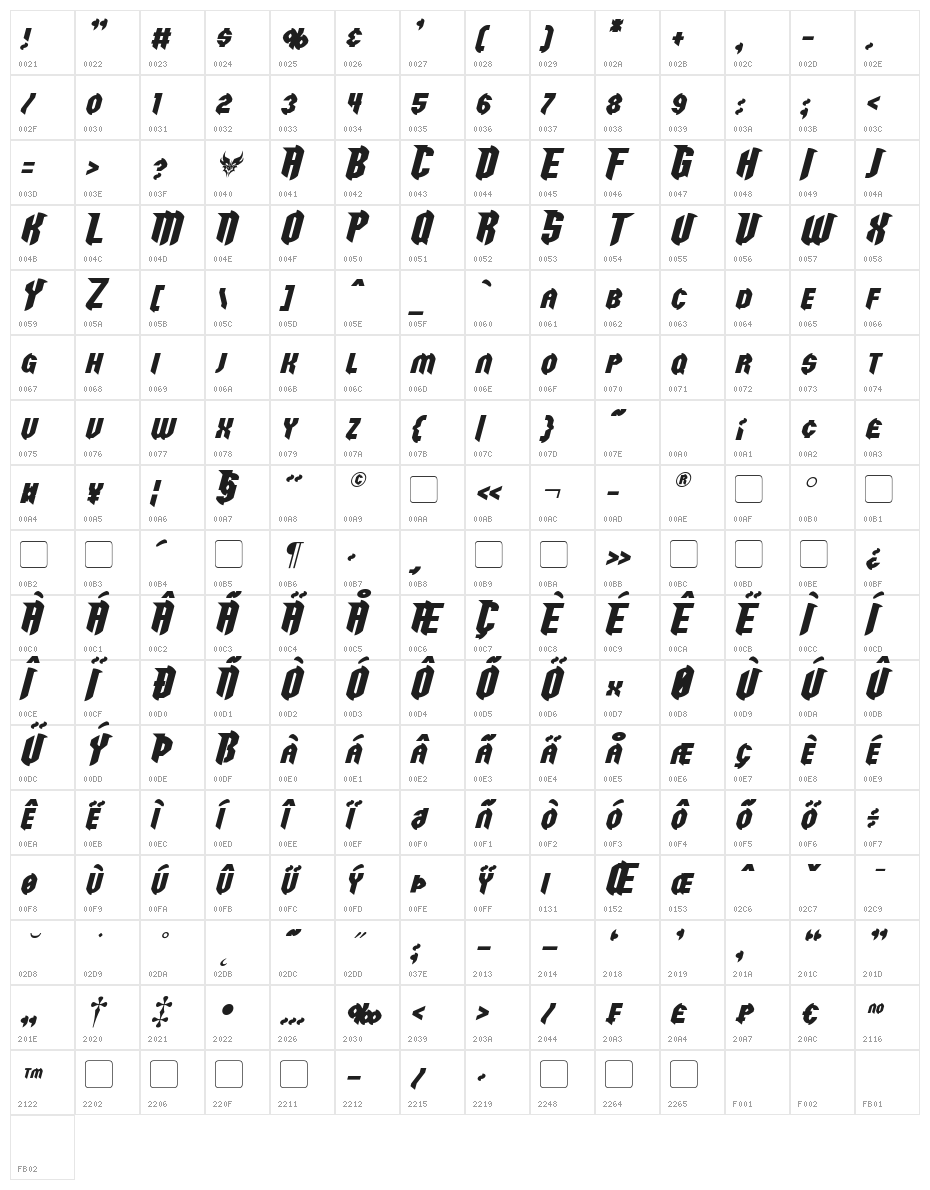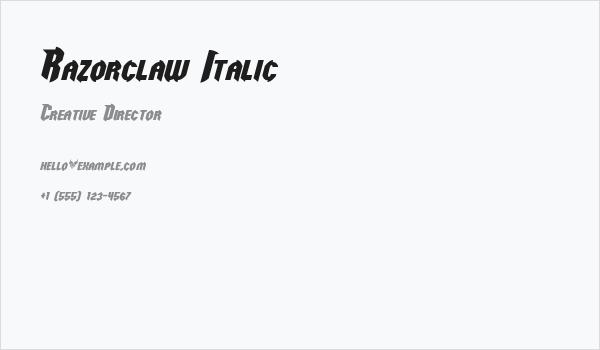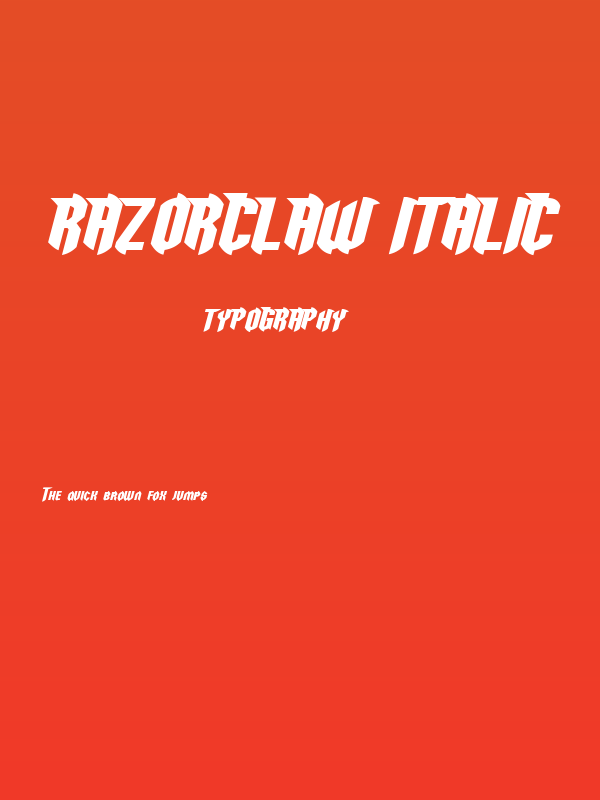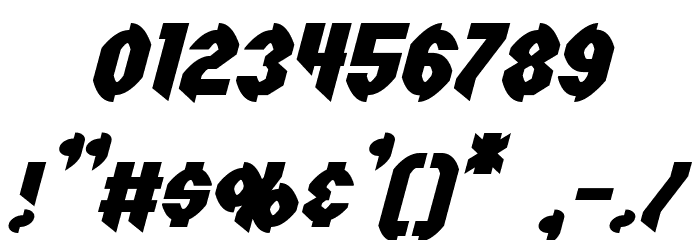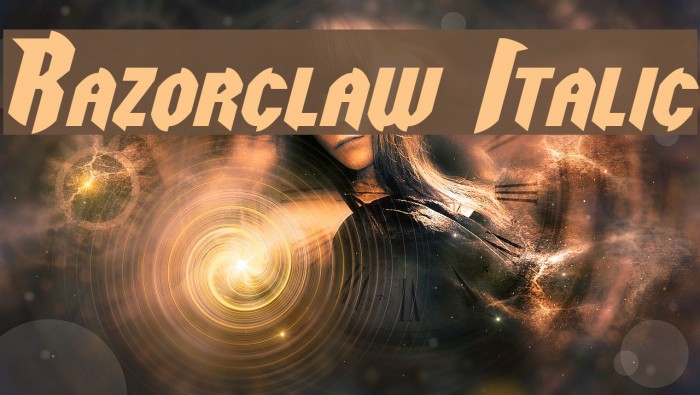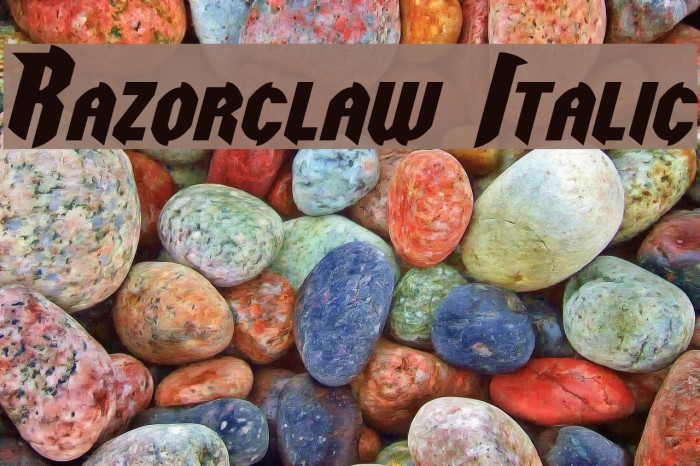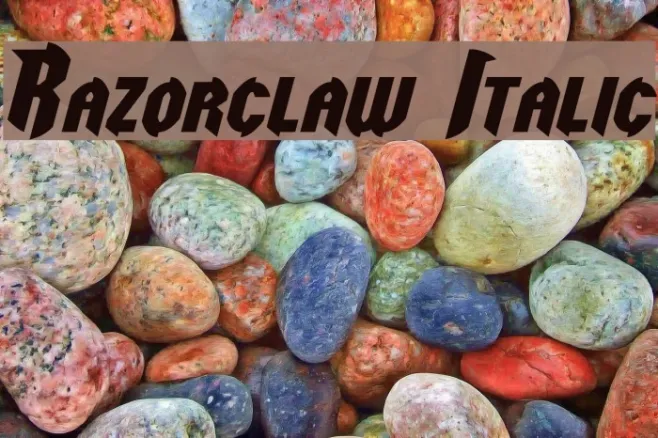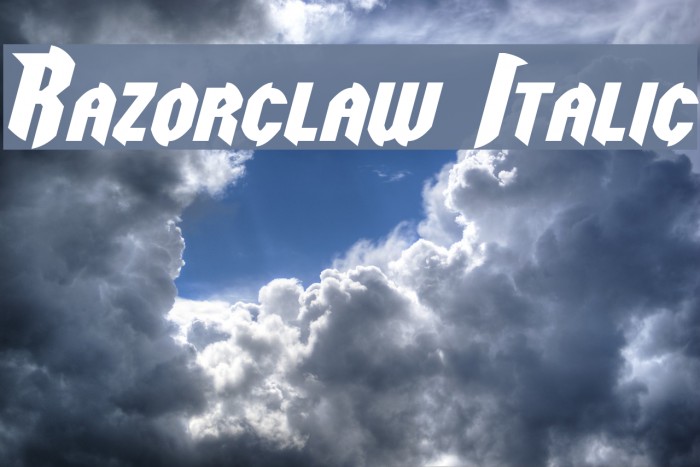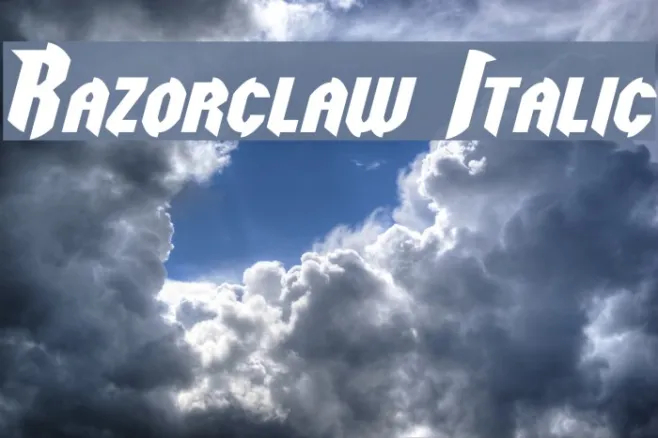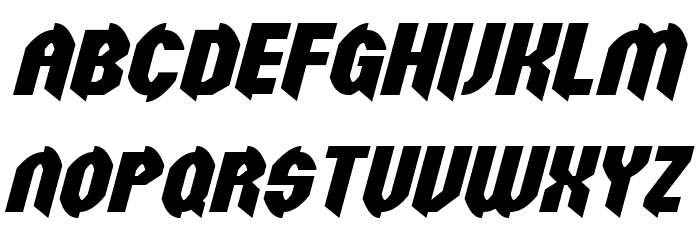
Razorclaw Italic Font
Razorclaw Italic Description
This font features a bold and aggressive design with sharp, angular lines that give it a dynamic and edgy appearance. The italicized style adds a sense of motion and urgency, making it stand out prominently. Each character is crafted with a distinct slant, enhancing its modern and futuristic feel. The uppercase and lowercase letters maintain a consistent style, while the numbers and special characters complement the overall aesthetic. The font's strong presence and unique design make it suitable for projects that require a bold statement.